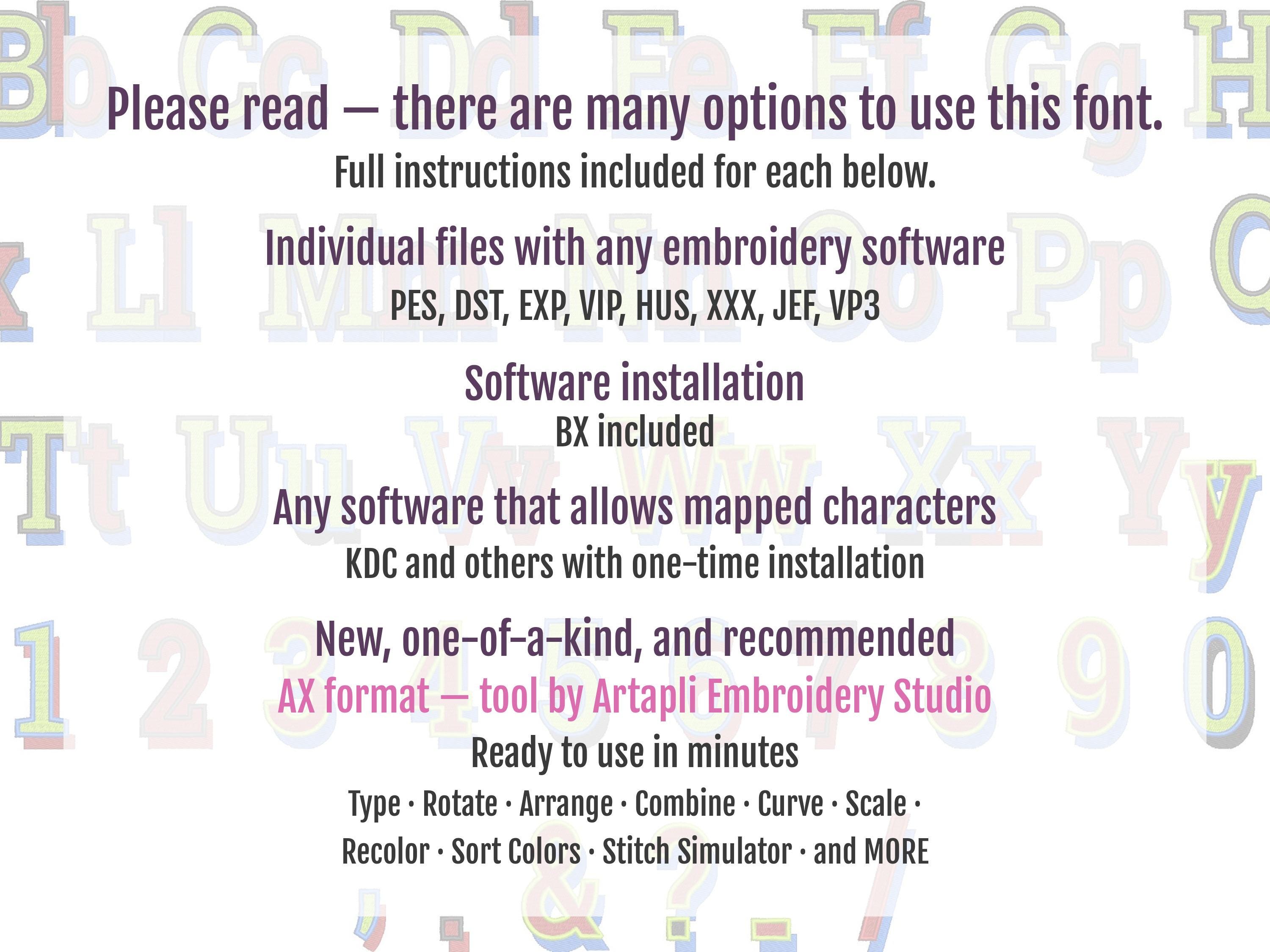
Summer SET Shadow solid Font and fringe tassel circle monogram frame machine embroidery designs, alphabet font 2 colors outline, BX included
2 color fringed tassel frame sizes
3″
4″
4.5″
5″
Monogram Font sizes
1.3″
1.6″
1.8″
2.5″
2″
3.5″
4.1 ″